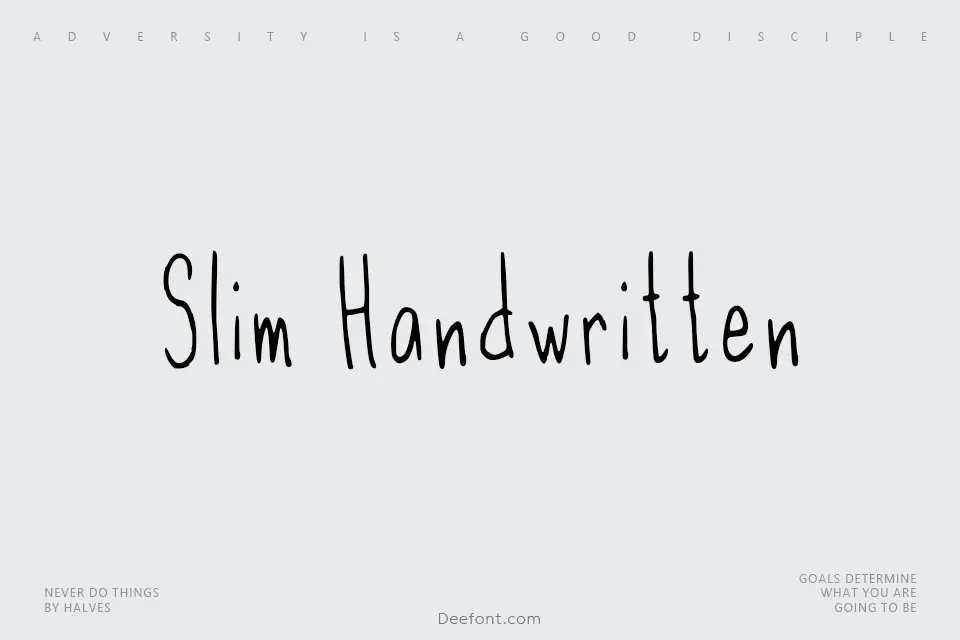
Slim Handwritten Font
Slim Handwritten is a graceful handwritten script typeface that brings authentic penmanship to your creative designs. This free font features elegantly thin letterforms with natural flowing strokes, making it ideal for invitations, greeting cards, personal branding, logo designs, and decorative text applications. The font’s minimalist aesthetic and excellent legibility at various sizes make it perfect for wedding announcements, stationery, social media graphics, and artistic projects that require a personal, handcrafted feel without sacrificing readability. Its versatile character makes it suitable for both print and digital applications.
Designed by:Andreana Celestinne Aguilar